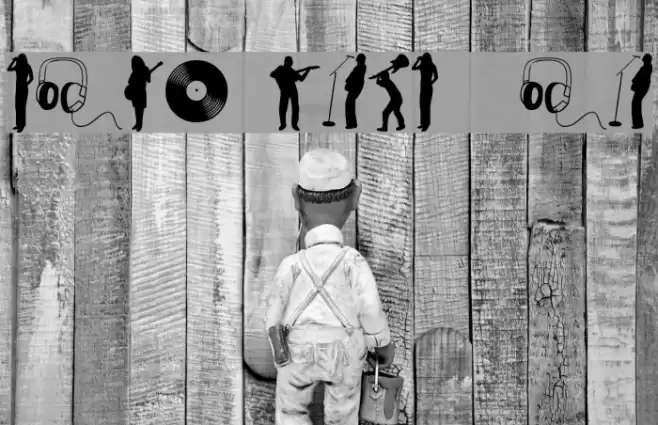
Rock Star 2.0 OT Font
Rock Star 2.0 OT Description
This is not a valid font. The image contains various rock-themed graphics and icons such as guitars, microphones, and musical notes, but does not display a complete set of alphanumeric characters or special symbols typically found in a font.
The image contains rock-themed graphics, not a font from Uncategorized fonts.